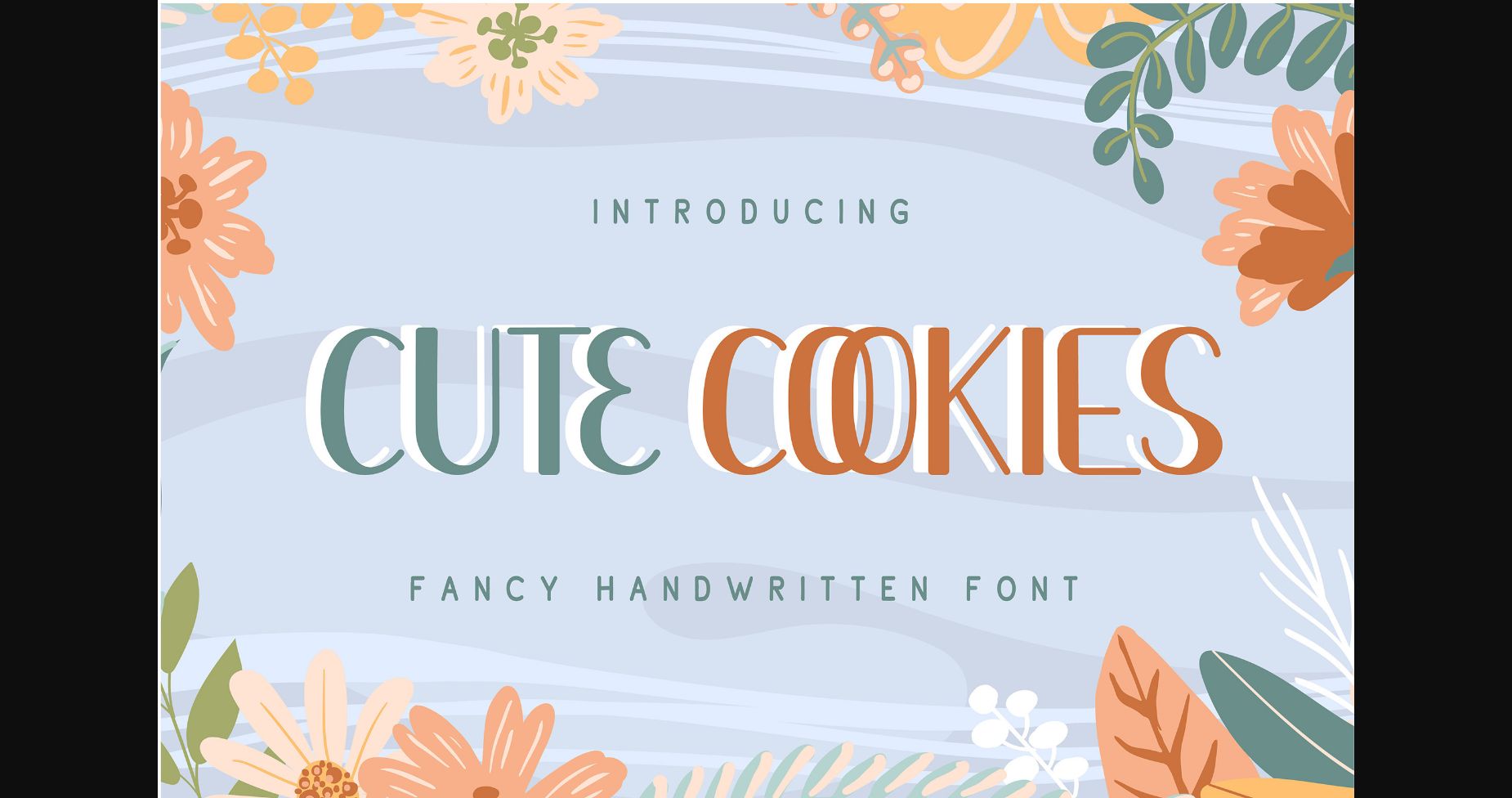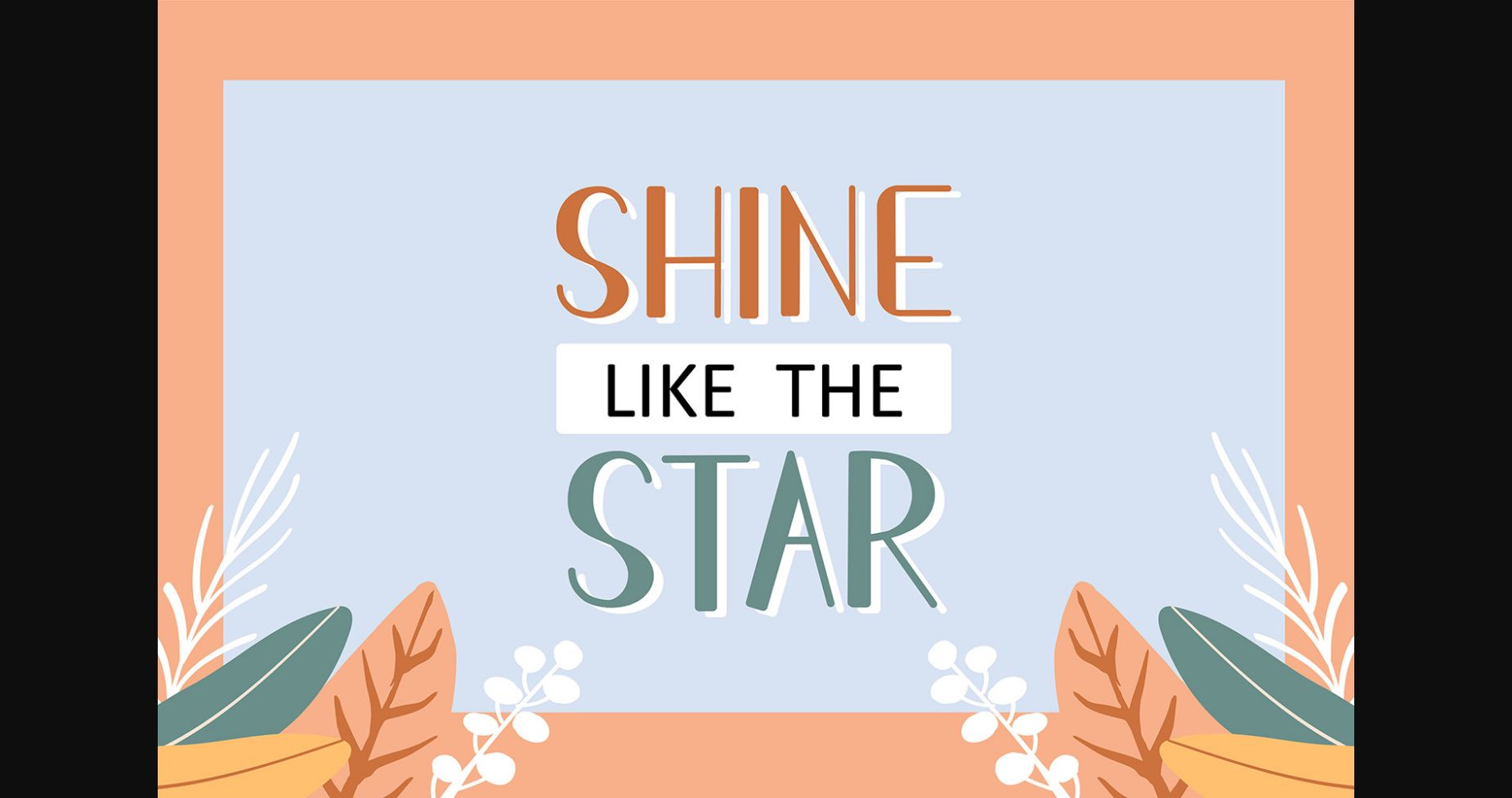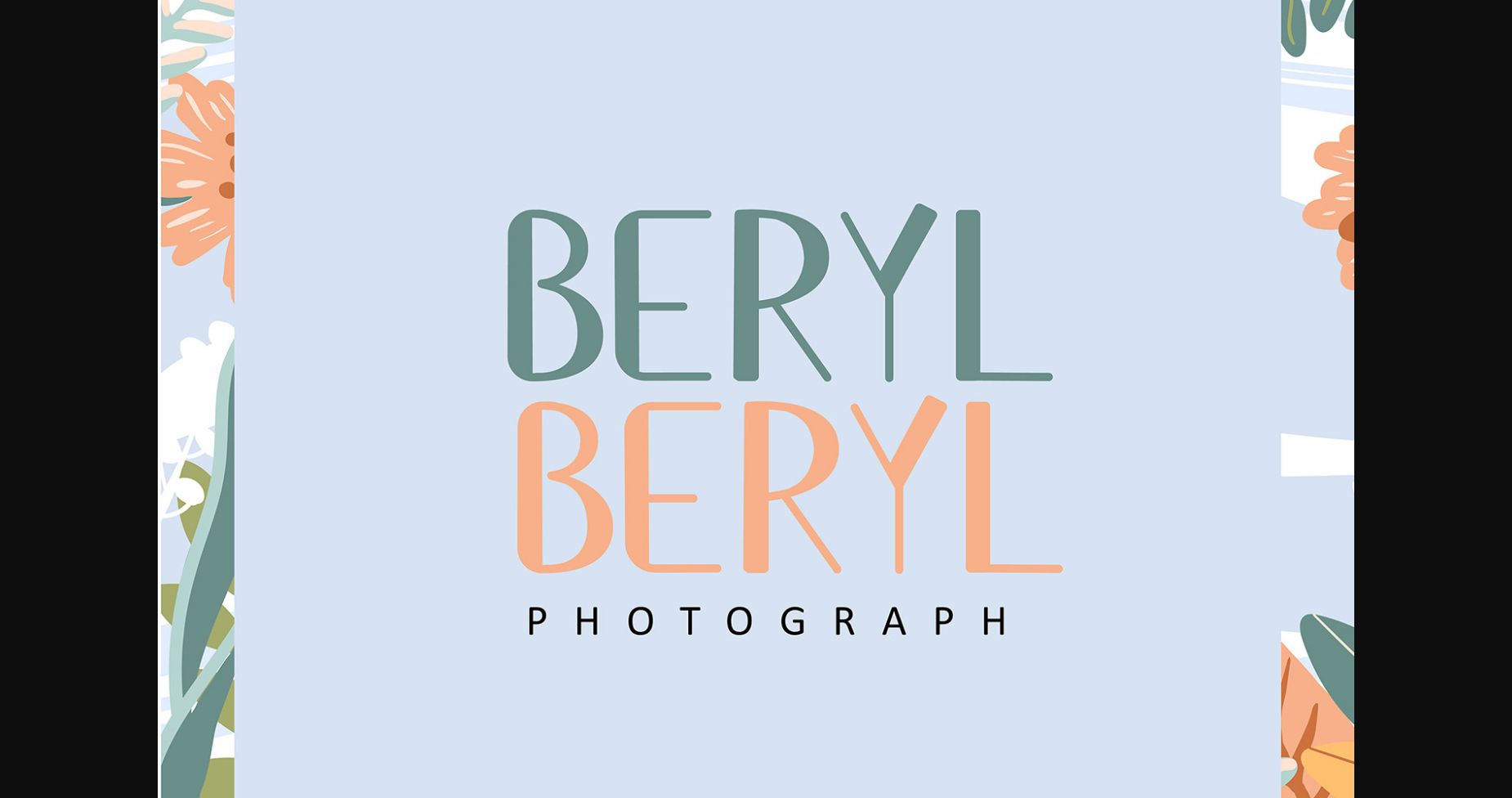
About Cute Cookies Font
Cute Cookies is a fancy and bouncy sans serif font, perfect for playful and creative ideas! It works great for storybook covers, product packaging, invitations, birthday cards, or other projects that need a personal touch.